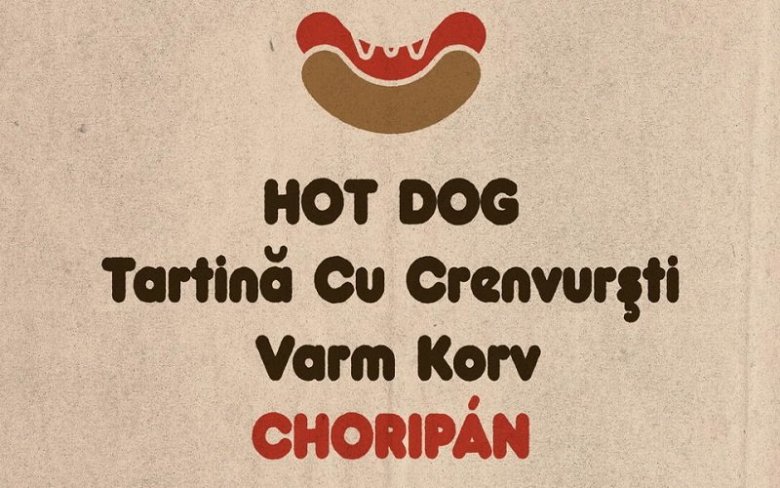
Choripán – Display Font Free
Choripán Display Font is a sans serif font that displays boldness and showmanship. It’s a revival typeface based on a classic design: Frankfurter, by Bob Newman (Letraset studio, 1970). It’s designed and shared by Rafael Nascimento. This font is best used for your design project that has the concept of fun, dinamic and elegant. Can also be applied to the design of a logotype, header website, wedding logo, romantic design, makes some lettering a quote, T-shirt design etc.